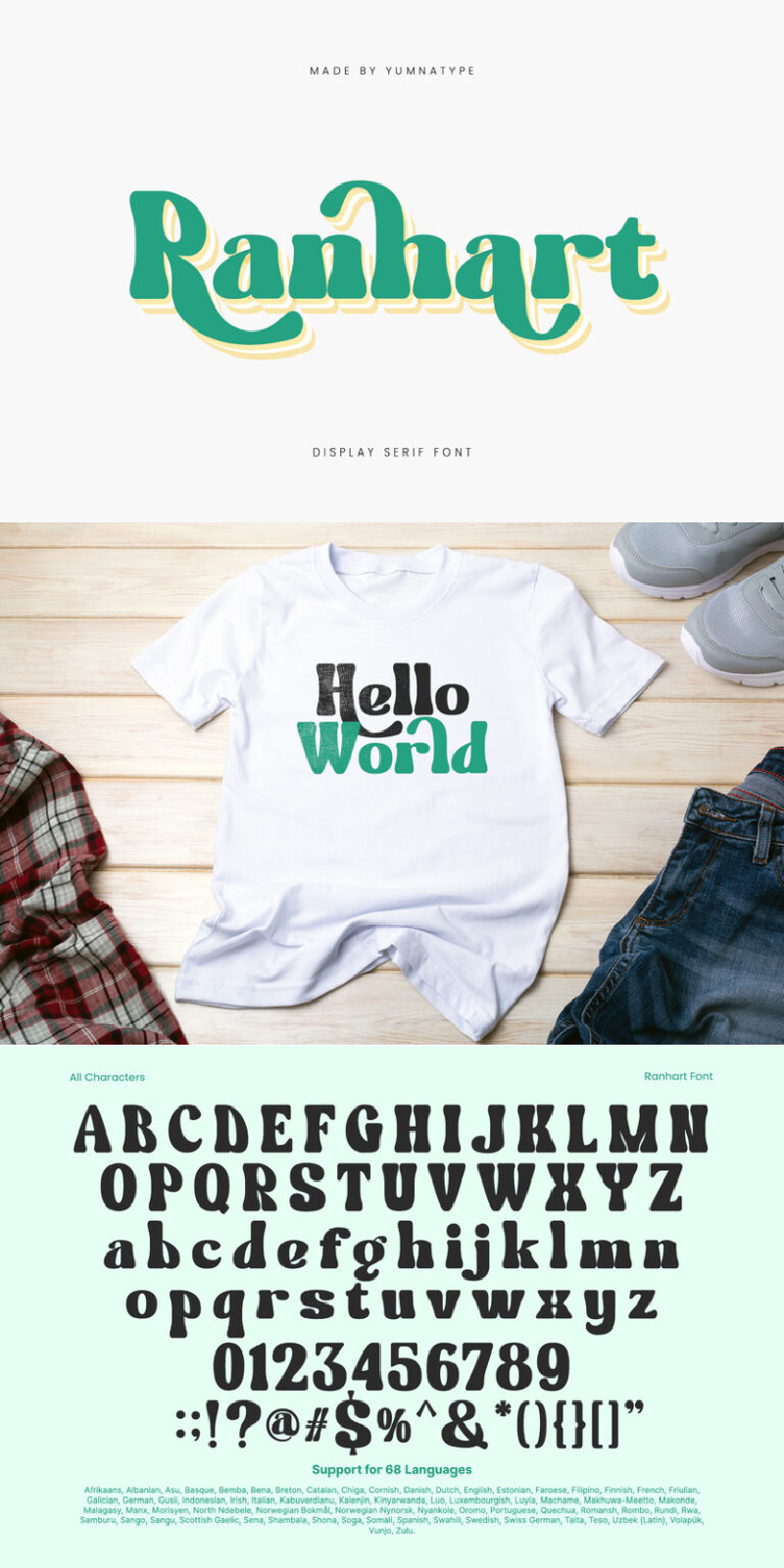
Ranhart Font
About Ranhart
Ranhart is a delightful serif font that blends a playful style with a balanced weight. Not too thick, its visible contrast and rounded shapes create a charming and approachable look. This font’s distinctive characteristisc makes it an excellent choice for projects that require a blend of sophistication and playfulness, ensuring your message stands out with grace and joy. In addition, enjoy the features here.
Ranhart fits in headlines, logos, posters, flyers, branding materials, print media, editorial layouts, and many more designs. Find out more ways to use this font by taking a look at the font preview.